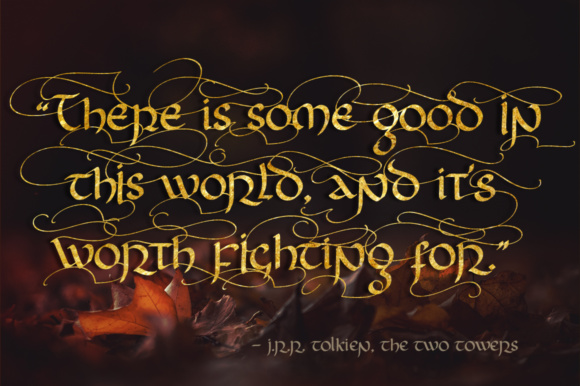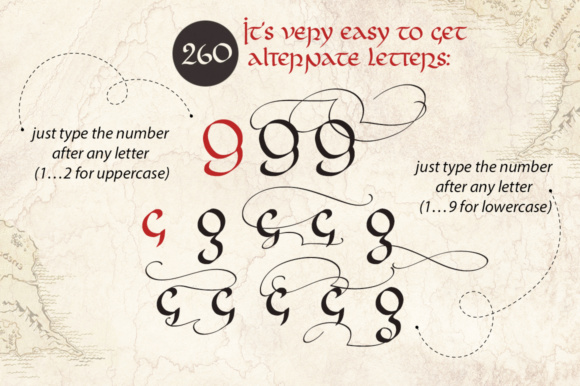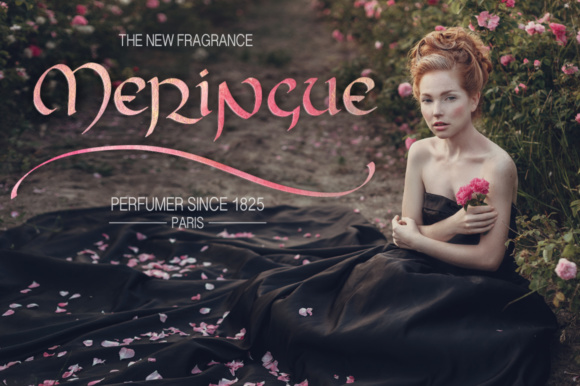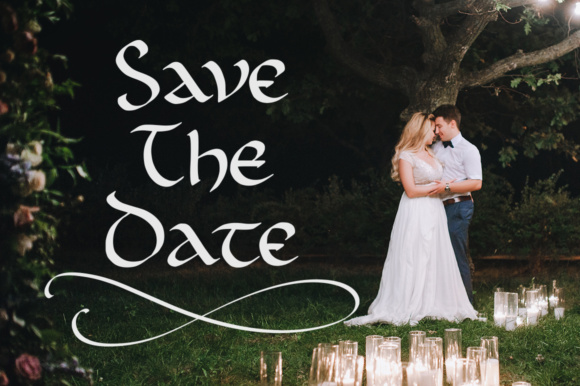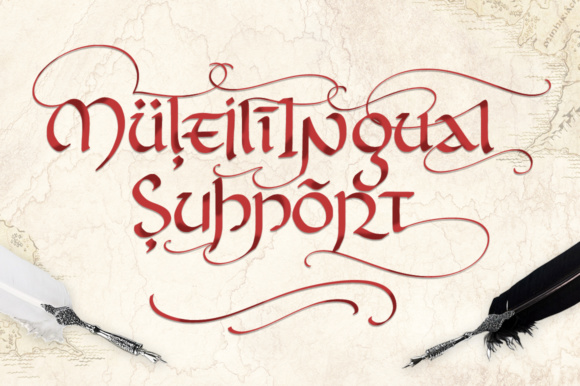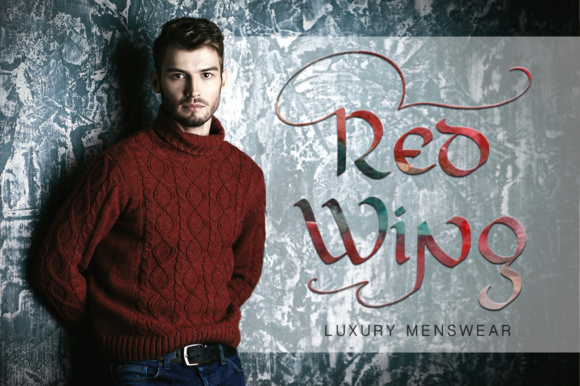
Introduction to Rivendell Font
As a designer, there’s nothing quite like the thrill of bringing a creative project to life. It’s the moment when all the pieces fall into place, and your vision begins to take shape. For me, that moment often starts with a font – the perfect tool to set the tone and atmosphere of my design. And, time and time again, I find myself reaching for the enchanting Rivendell Font.
With its classic, elegant, and vintage feel, the Rivendell Font is a design resource that never fails to inspire. Whether I’m working on a vintage card, a modern t-shirt, or a luxury branding material, this beautiful blackletter font always brings a touch of magic to my designs. And, with its numerous alternate letters and swashes, the possibilities are endless.
Key Features of Rivendell Font
- High-quality design resource suitable for creative projects requiring elegant typography.
- Designed with a classic and sophisticated aesthetic, perfect for formal or luxury-themed designs.
- Includes a comprehensive character set with Latin and Cyrillic scripts, covering a wide range of languages.
Honest Review: Rivendell Font
I recently stumbled upon the Rivendell Font, and I must say it’s been a game-changer for my creative projects. This font is perfect for designers and artists looking for a high-quality design resource to elevate their work.
What works well about the Rivendell Font is its unique, elegant design. The font is incredibly versatile and can be used for a variety of purposes, from book titles to branding materials. I also appreciate that it’s available for free download, making it a fantastic resource for designers on a budget.
One of the standout features of the Rivendell Font is its transparent background, which makes it easy to layer and combine with other design elements. This feature is especially useful for designers working on complex creative projects.
- ✨ Unique and elegant design
- ✨ Versatile and suitable for various purposes
However, there are some limitations to the Rivendell Font. The font is not as extensive as some other options, with only a limited number of characters available. This may be a drawback for designers working on projects that require a wide range of characters.
Overall, I’m thoroughly impressed with the Rivendell Font. While it may have some limitations, its unique design and versatility make it a valuable addition to any designer’s toolkit. If you’re looking for a high-quality design resource for your next creative project, I highly recommend giving the Rivendell Font a try.
Rivendell Font
Tips for Getting the Most Out of Rivendell Font
For optimal results, use Rivendell Font on a transparent background to create a seamless design. You can also experiment with different font sizes, colors, and styles to achieve the desired look. Additionally, consider pairing Rivendell Font with other design resources, such as images and graphics, to enhance your creative project.
Rivendell Font is ideal for various creative projects, including:
- Social media graphics and flyers
- Graphic novels and comics
Is the Rivendell Font a high-quality design resource?
Yes, the Rivendell Font is considered a high-quality design resource, offering a unique and elegant style that can elevate your creative project. With its intricate details and refined typography, the Rivendell Font is an excellent choice for designers seeking a sophisticated and visually appealing font.